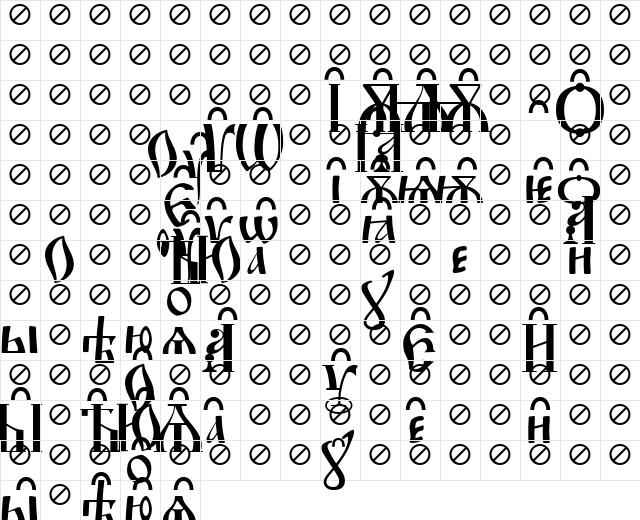
Irmologion Circumflex Normal
Design Context for Irmologion Circumflex Typeface
Irmologion Circumflex takes a measured approach to typography — its balanced proportions and neutral character make it a reliable workhorse for both digital and print work.